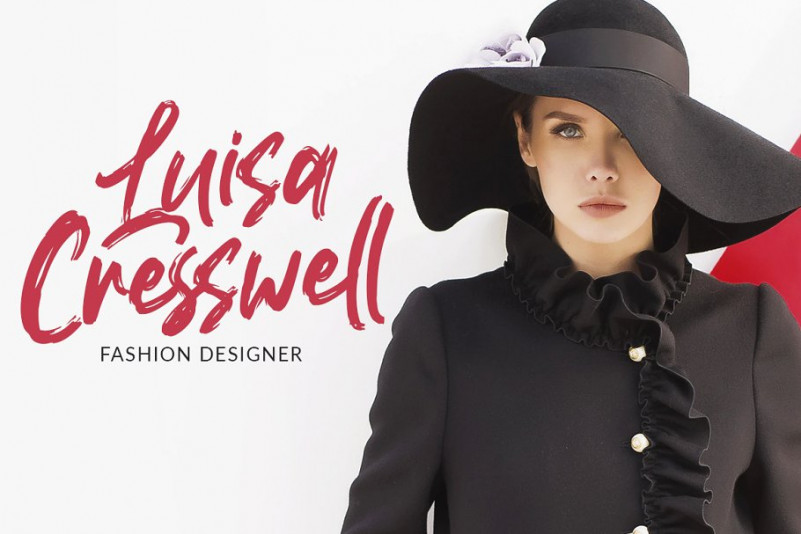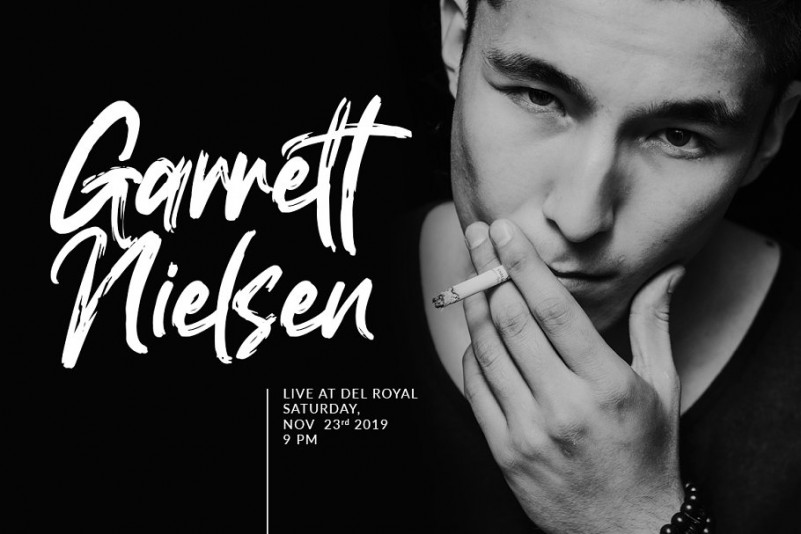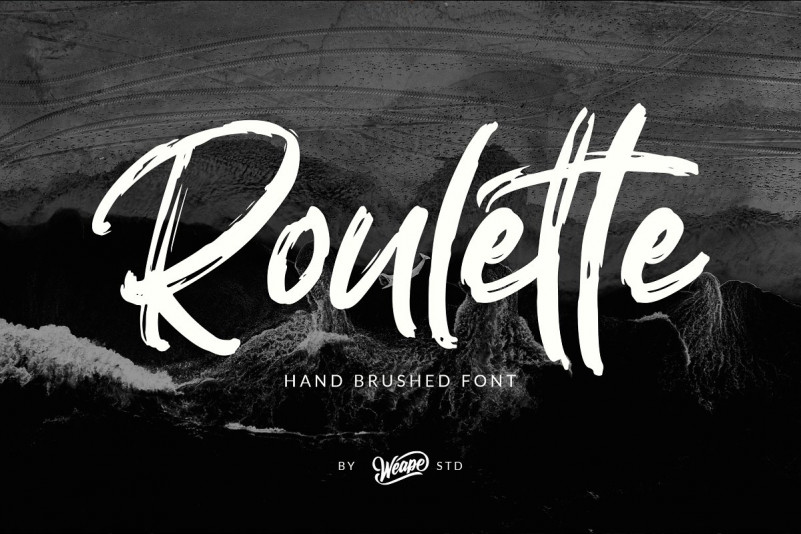
Roulette Font
Introducing Roulette Hand Brushed Font, with natural rough dry brush strokes, and the stroke of hand quickly. You can use and enjoy Roulette, for promotional material and anything.
And this font perfect for signature, handwritten quotes, wedding, product packaging, fashion, photography, merchandise, branding projects, poster, social media, book cover, greeting cards, and advertising. You can create more easily with each letter and make it as if you wrote it yourself.